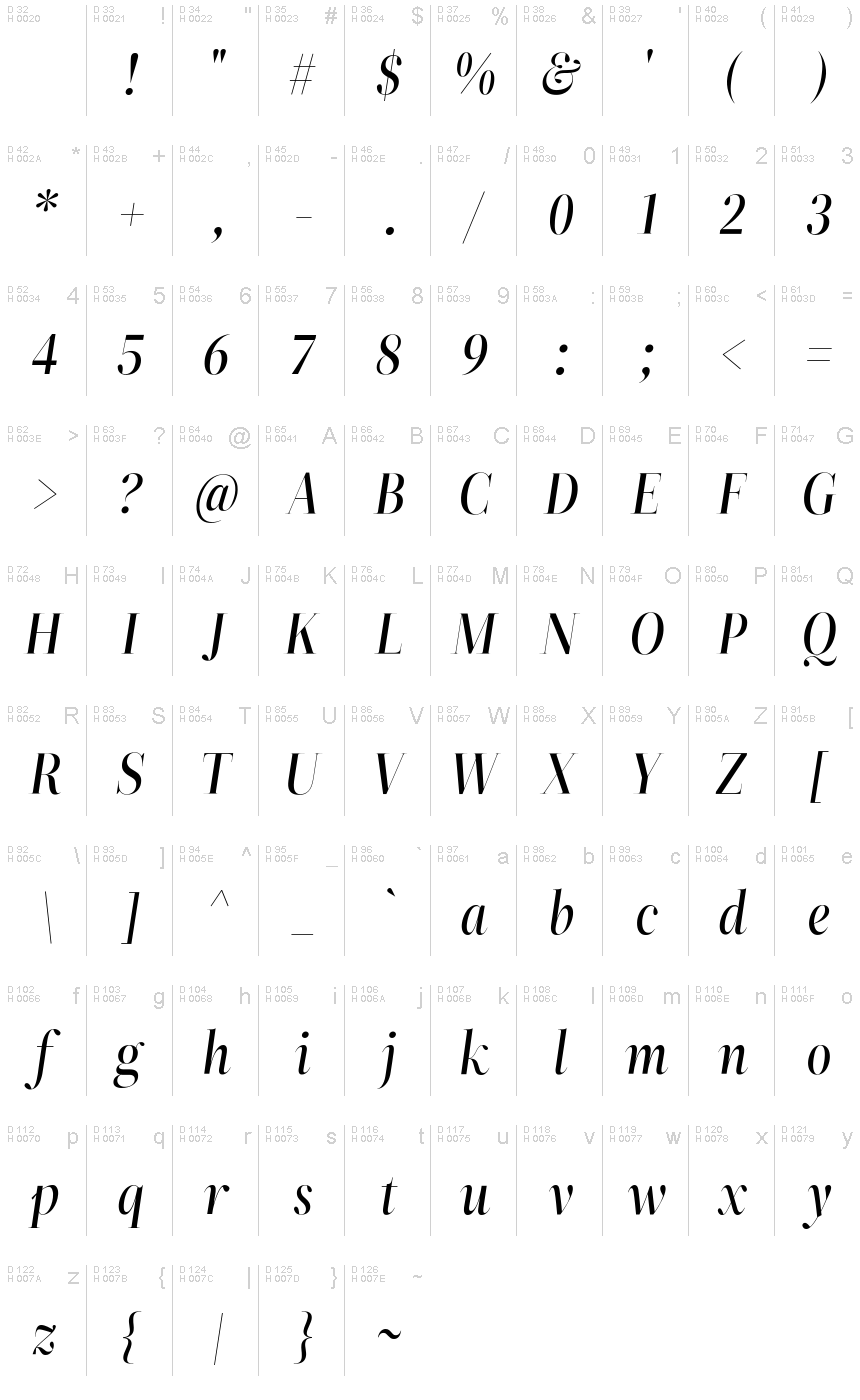
ZT Neue Ralewe Medium Italic
Exuding a timeless elegance, the ZT Neue Ralewe Medium Italic captivates with its refined, serif-inspired aesthetic. Crafted by the talented Zelow Type, this font embodies a harmonious balance of traditional and modern influences. The graceful curves and subtle italicized slant lend an air of sophistication, while the medium weight strikes a perfect balance between strength and delicacy.
The ZT Neue Ralewe Medium Italic's versatility makes it a versatile choice for a wide range of design applications. From high-end editorial pieces and luxury brand identities to captivating book covers and elegant wedding stationery, this font's timeless elegance and refined sensibility can elevate any project with its refined, polished presence.
Step into the realm of design opulence with ZT Neue Ralewe - a serif font that doesn't just grace your creations; it transforms them into masterpieces. This font is more than a collection of characters; it's an embodiment of:
- 90 Styles: From the delicate dance of Thin to the commanding presence of Black.
- 26 Unique Characters, each whispering tales of individuality.
- 700+ Glyphs, a kaleidoscope of expressive possibilities.
- Condensed to Expanded Variations, offering a canvas for dynamic design poetry.
- Timeless Elegance that transcends trends, crafting a legacy of sophistication.
- Global Language Support, a harmonious embrace, inclusive of Basic Cyrillic.
- Versatility for both Headlines and Body Text, where every word becomes a stanza.